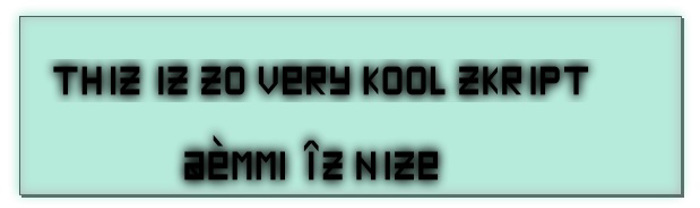
SEMI HINGLISH ANN Font
simple and cool with some words replaced because in hindi s and c both are same while in english c is pronounced as k and s ..... so here s and c are replaced by the hindi sounds and some extra sounds are added ...